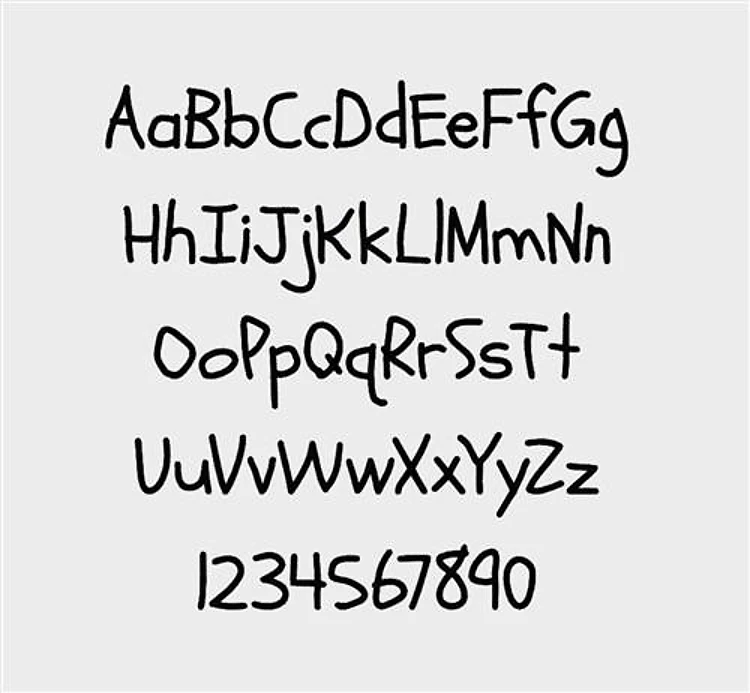
Artsy Knots is happy to present Schoolbell Embroidery Font - Playful Handwriting Style - PES, DST & 6 formats machine embroidery font which has Playful handwritten style machine embroidery font ideal for projects on children’s clothing and accessories. Available in PES, DST, and 6 other formats. included. If you would like to view more embroidery fonts and alphabets please search our embroidery fonts page.